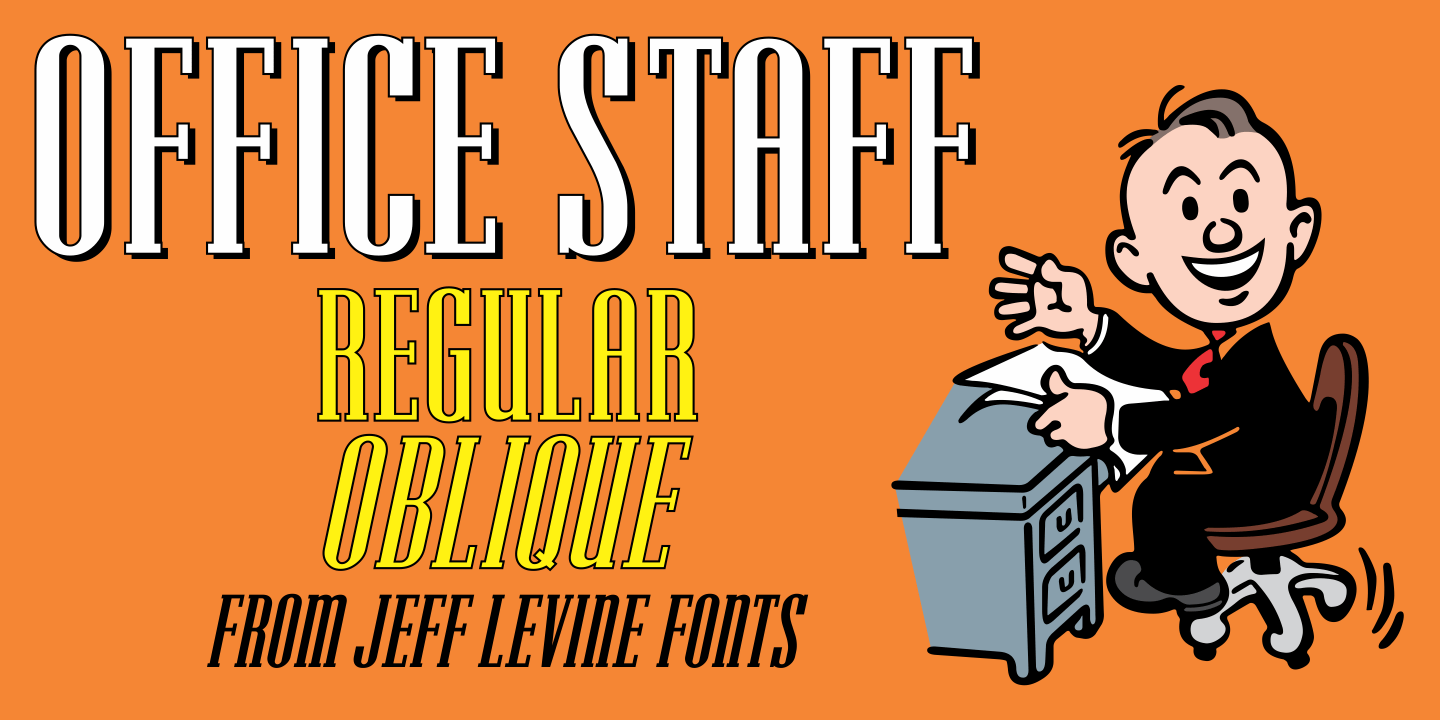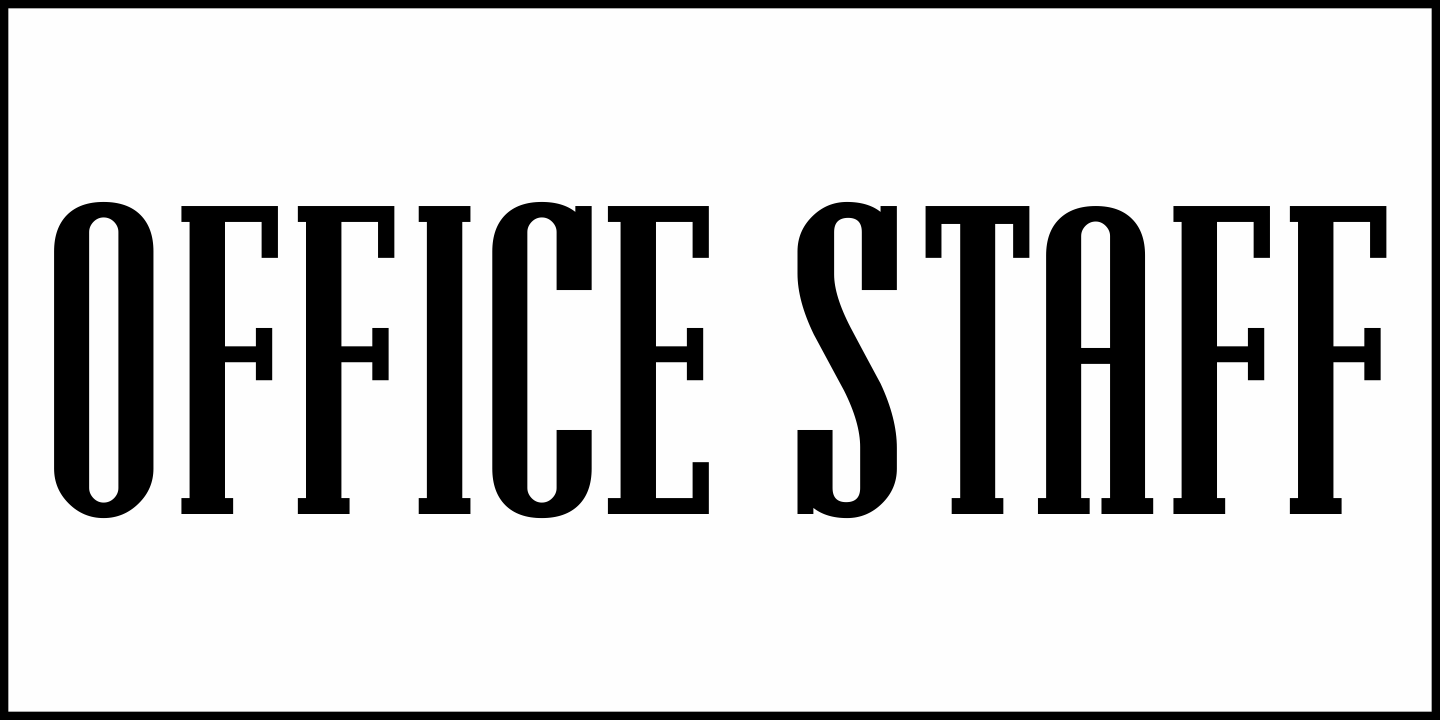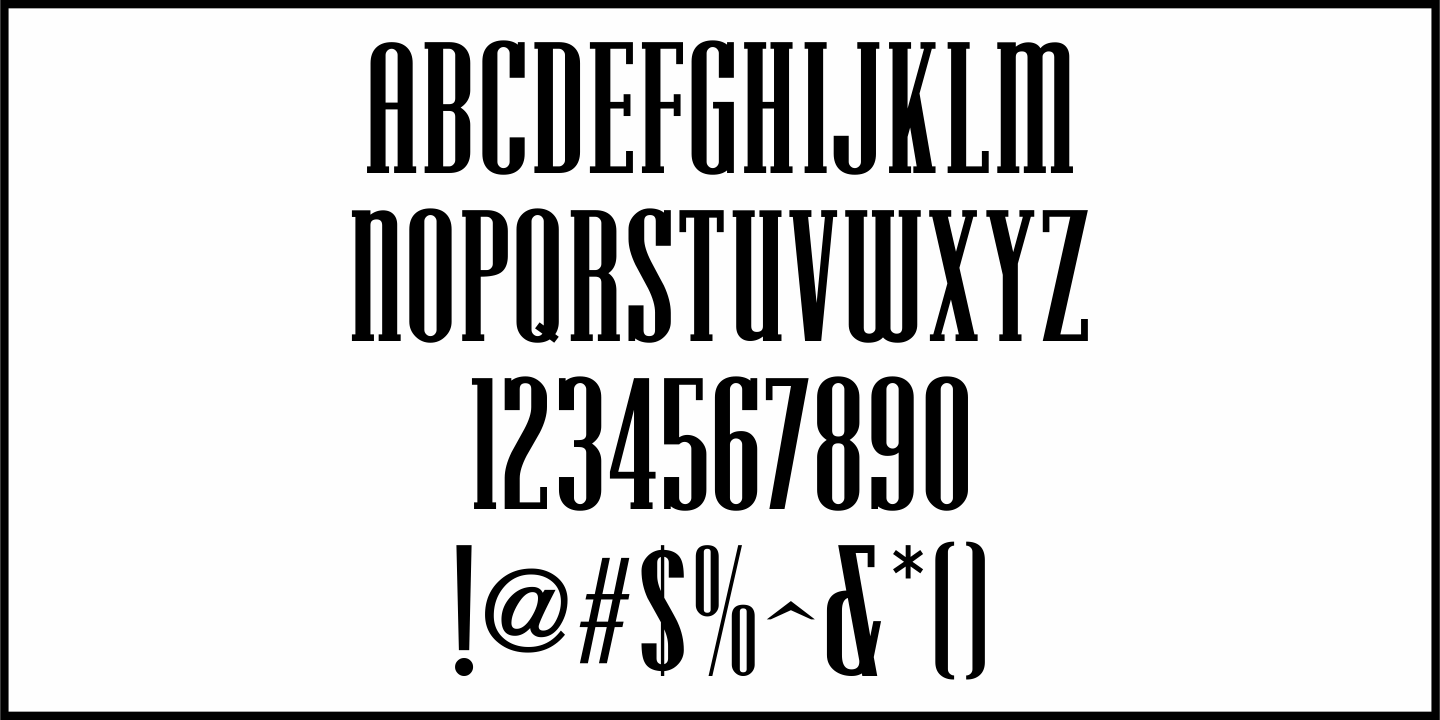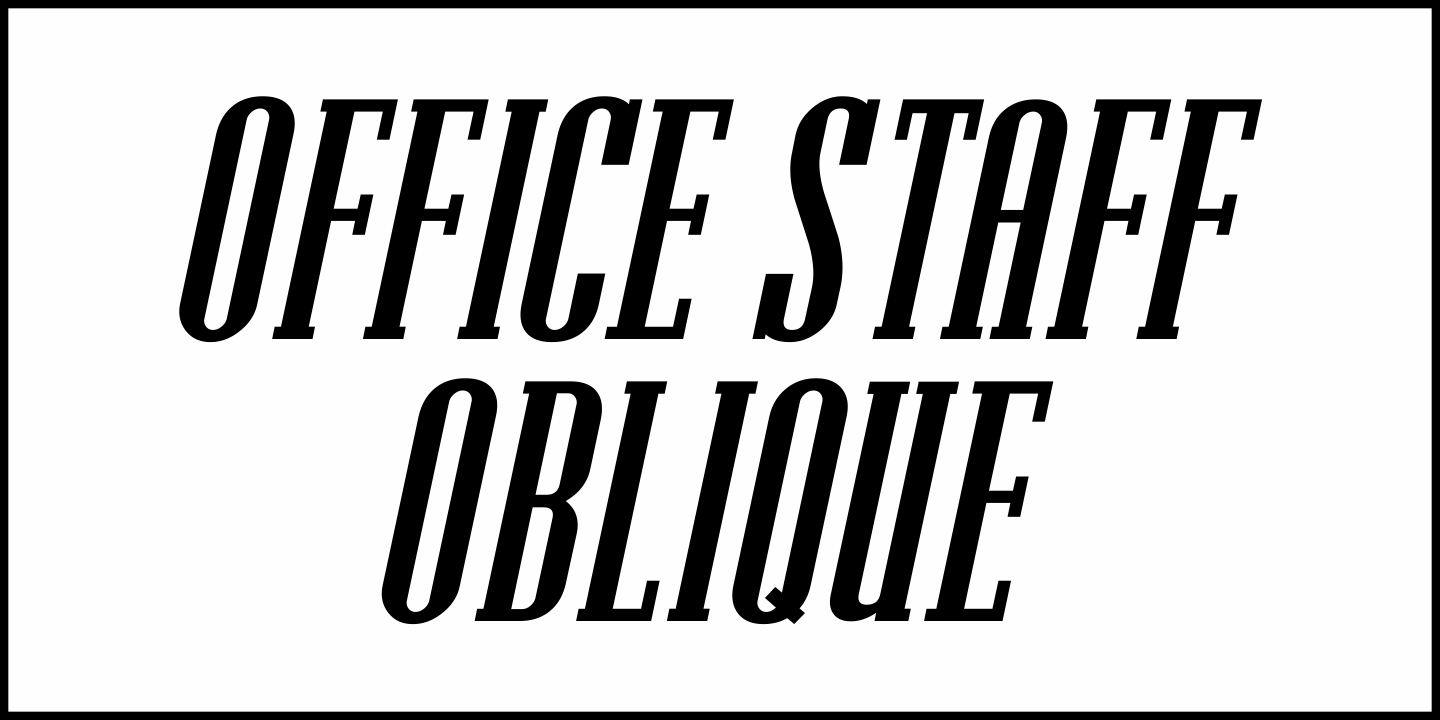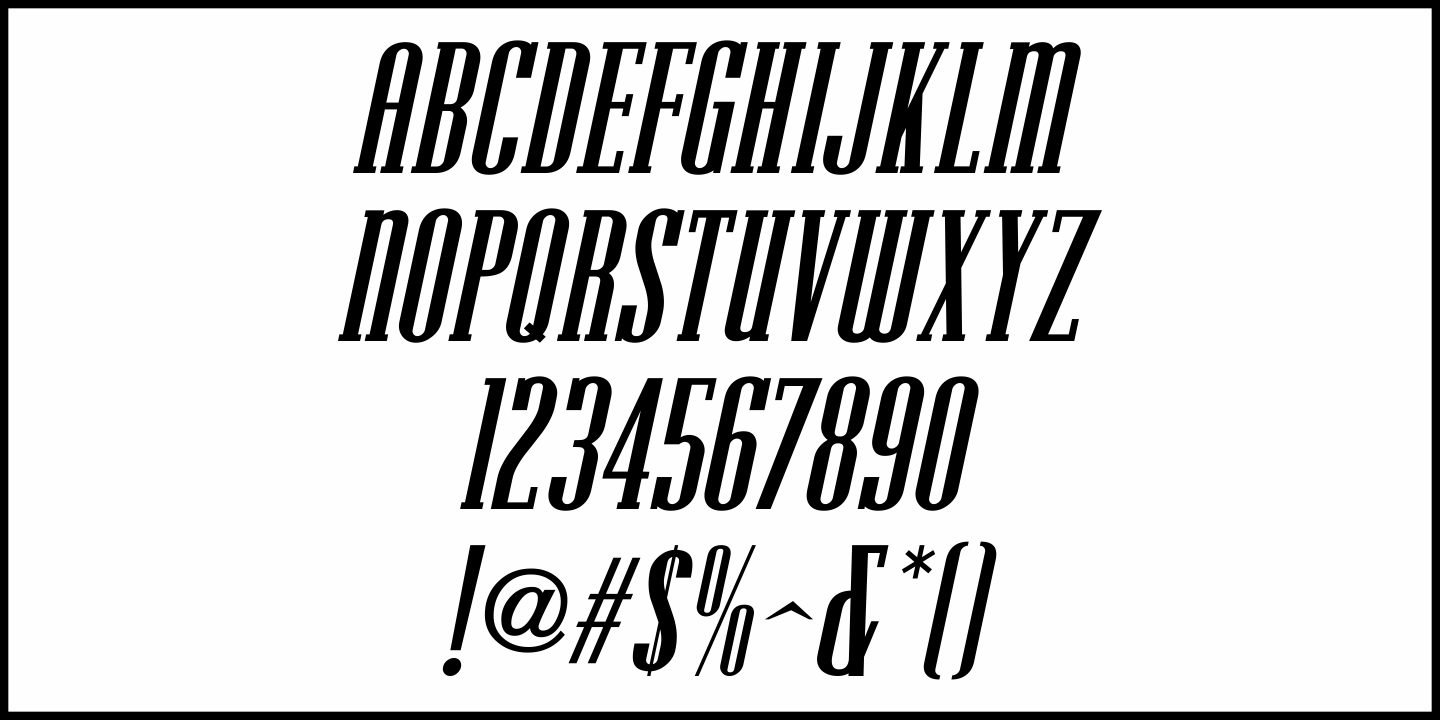
Office Staff
Office Staff JNL is a version [with serifs added] of Popularity JNL – a condensed Art Deco design based (for the most part) on a popular typeface known in some foundry books as ‘Radiant’ with some reinterpreted characters… and is available in both regular and oblique versions.
Office Staff by Jeff Levine Fonts